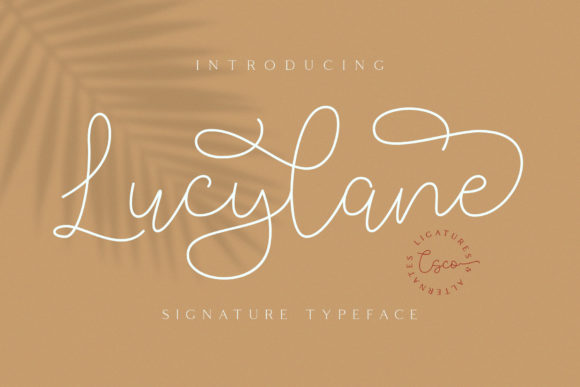
Dive into the world of calligraphy with Lucylane Font, the epitome of elegance and charm. Crafted by the renowned craftsupplyco, this free-flowing monoline script will captivate your audience with its graceful strokes and effortless charm.
Lucylane Font is not just a font; it's an experience. Its meticulously designed letterforms, connected by seamless transitions, evoke the beauty of handwritten signatures. The OpenType Contextual Alternates feature adds a touch of authenticity, allowing you to create designs that feel personal and heartfelt.
Whether you're a seasoned designer or a creative enthusiast, Lucylane Font is your perfect companion. Its versatility knows no bounds, making it suitable for an array of projects, from wedding invitations and greeting cards to branding and social media graphics.
With Lucylane Font, your designs will come alive. Its enchanting aura will add a touch of sophistication to your projects, making them stand out from the crowd. Imagine your words dancing on the page, each letter flowing into the next with effortless grace, captivating your audience's attention.
Lucylane Font is more than just a font; it's an invitation to explore your creativity. Its elegant style will inspire you to create designs that are both visually stunning and emotionally resonant. Let your imagination soar as you craft projects that exude personality and charm.
So, embrace the beauty of calligraphy with Lucylane Font. Experience the joy of creating designs that speak to the heart. Your projects will thank you for it.